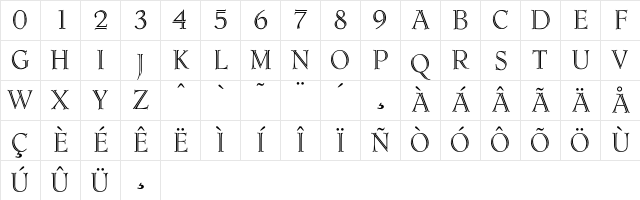
Complete OPTIDeRoosInlineInitials Regular glyph index. Displaying only characters natively supported by OPTIDeRoosInlineInitials Regular font.
OPTIDeRoosInlineInitials is built around its visual character rather than neutral utility - its distinctive forms are designed to make an impression at display sizes.